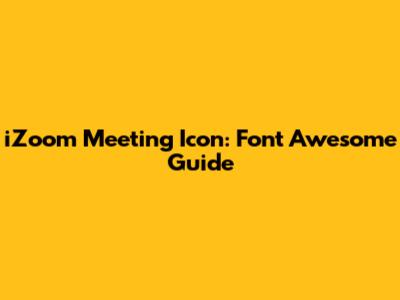
- Video Camera Icons: Anything resembling a camera is a solid start.
- Users or Group Icons: Icons showing multiple people can imply a meeting.
- Computer or Screen Icons: These can represent the digital aspect of online meetings.
- Meeting or Conference Icons: Look for icons specifically designed to depict meetings or conferences.
- Size: Use the
font-sizeproperty to adjust the icon's size. For example,font-size: 2em;will make the icon twice the size of the surrounding text. - Color: Change the icon's color with the
colorproperty. For instance,color: #007bff;will set the icon to a nice blue color. - Rotation: Rotate the icon using the
transform: rotate()property. For example,transform: rotate(45deg);will rotate the icon 45 degrees. - Adding a Background: You can even add a background to your icon by wrapping it in a
<span>or<div>and styling that element. - Combining Icons: For advanced users, Font Awesome allows you to layer icons on top of each other to create custom designs. This can be a great way to create a unique iZoom meeting icon.
Hey guys! Ever been in a situation where you're trying to jazz up your website or presentation with a cool icon representing iZoom meetings, but you're not quite sure where to start? Well, you've landed in the right spot! Let's dive into the world of Font Awesome and how you can snag that perfect iZoom meeting icon to make your digital presence pop.
Understanding Font Awesome
Before we get our hands dirty with the specifics of the iZoom meeting icon, let's quickly chat about what Font Awesome actually is. Think of Font Awesome as a massive library filled with scalable vector icons that you can customize with CSS. Instead of using images, which can sometimes look pixelated or require different versions for various screen sizes, Font Awesome provides icons as fonts. This means they're super scalable, lightweight, and easy to style. Font Awesome icons are incredibly versatile, and using them can seriously level up your web design game.
The beauty of using Font Awesome lies in its simplicity and flexibility. Imagine you're building a website and want to include an icon next to your meeting links. Instead of hunting for a suitable image, resizing it, and optimizing it for different resolutions, you can simply use a Font Awesome icon. This not only saves you time but also ensures that your icons look crisp and clear on any device. Plus, with CSS, you can easily change the size, color, and even add effects like shadows or animations to your icons.
Another significant advantage of Font Awesome is its extensive library. With thousands of icons available, you're likely to find exactly what you need, whether it's a simple arrow, a social media logo, or, of course, an icon representing online meetings. The icons are categorized and searchable, making it easy to discover new options and keep your designs fresh and modern. And the best part? Font Awesome is constantly updated with new icons, ensuring that you always have access to the latest and greatest visuals for your projects. For developers, this means less time spent creating or sourcing icons and more time focusing on building amazing user experiences.
Moreover, Font Awesome offers different versions, including a free version and a Pro version. The free version includes a substantial collection of icons that are perfect for many projects, while the Pro version unlocks even more icons and features for those who need a wider range of options. Whether you're a hobbyist or a professional designer, Font Awesome has something to offer. Integrating Font Awesome into your projects is also a breeze, thanks to its compatibility with various web development frameworks and content management systems. Simply include the Font Awesome CSS or JavaScript file in your project, and you're ready to start using icons.
Finding the Right iZoom Meeting Icon
Okay, so how do we actually find an iZoom meeting icon within Font Awesome? Here’s the deal: Font Awesome doesn't have an official iZoom icon because, well, that's a trademarked brand. But don't sweat it! We can get creative. You're looking for icons that represent online meetings or video conferencing. Think along the lines of:
To find these, head over to the Font Awesome website and use their search bar. Keywords like "video," "meeting," "users," "computer," and "conference" will be your best friends. Browse through the results and see what catches your eye. Remember, the perfect icon is subjective—it depends on the overall style of your project.